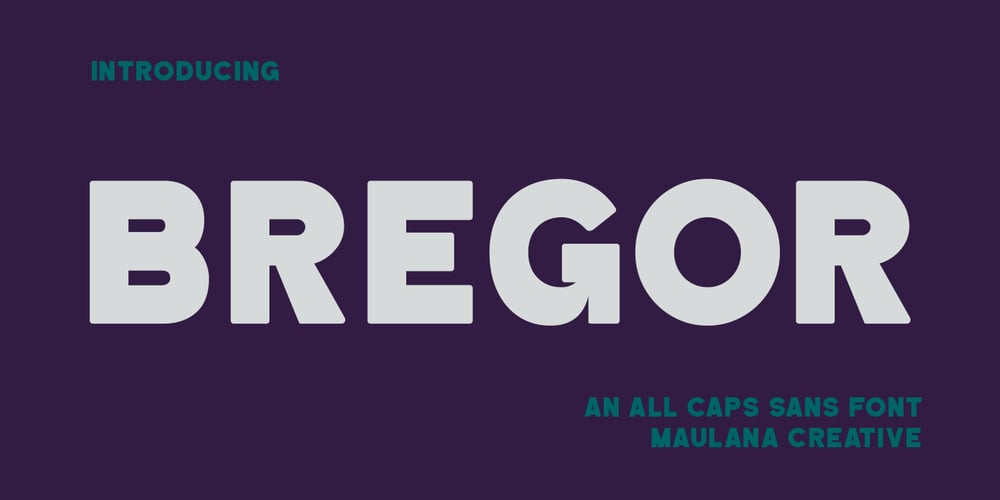
MC Bregor Font Family was designed by Gilang Maulana and published by Maulana Creative. MC Bregor contains 1 styles and family package options. Bregor is an All caps simply strong sans serif font. With Bold stroke, fun character with a bit of ligatures and alternates. To give you an extra creative work. Bregor font support multilingual more than 100+ language. This font is good for logo design, Social media, Movie Titles, Books Titles, a short text even a long text letter and good for your secondary text font with script or serif. Make a stunning work with Bregor font. Cheers, Maulana Creative